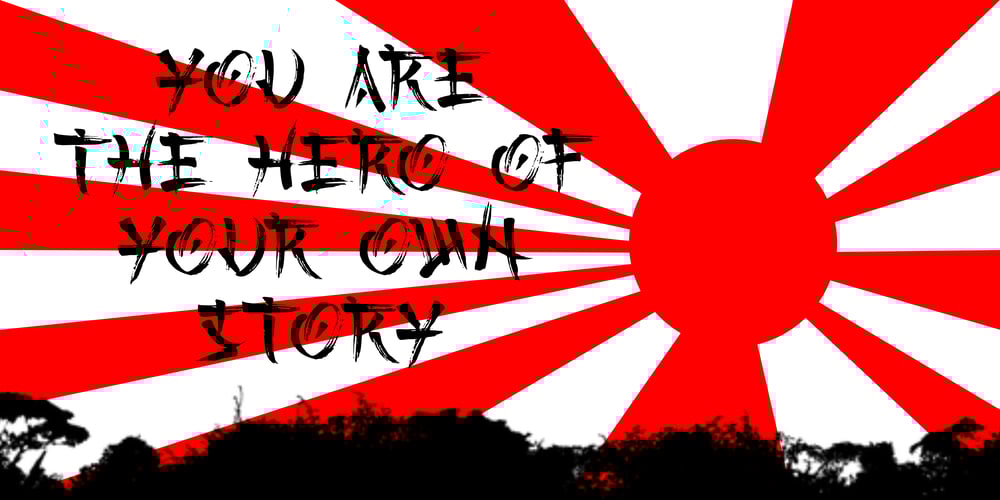
Kashima Brush
Kashima Brush font
Kashima Brush Font Family was designed by Abo Daniel and published by Abo Daniel. Kashima Brush contains 1 styles and family package options. Kashima is brush font with Japanese style that made using the real brush pen. It looks very natural. This font is great for apparel, branding, logo, magazine, quotes, packaging, advertising, and more, that need a styling of a Japanese brush feel. Kashima is all capital font and includes punctuation, symbols, and numerals. It also has multilingual support. Thank you abo daniel